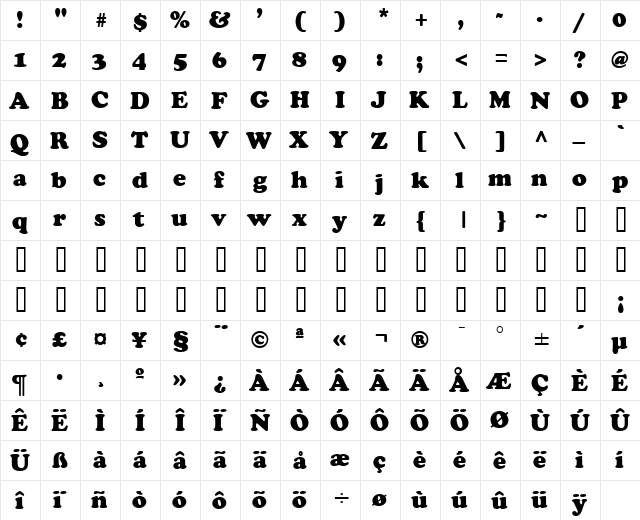
Cupid Normal
Design Context for Cupid Typeface
Cupid takes a measured approach to typography — its balanced proportions and neutral character make it a reliable workhorse for both digital and print work.